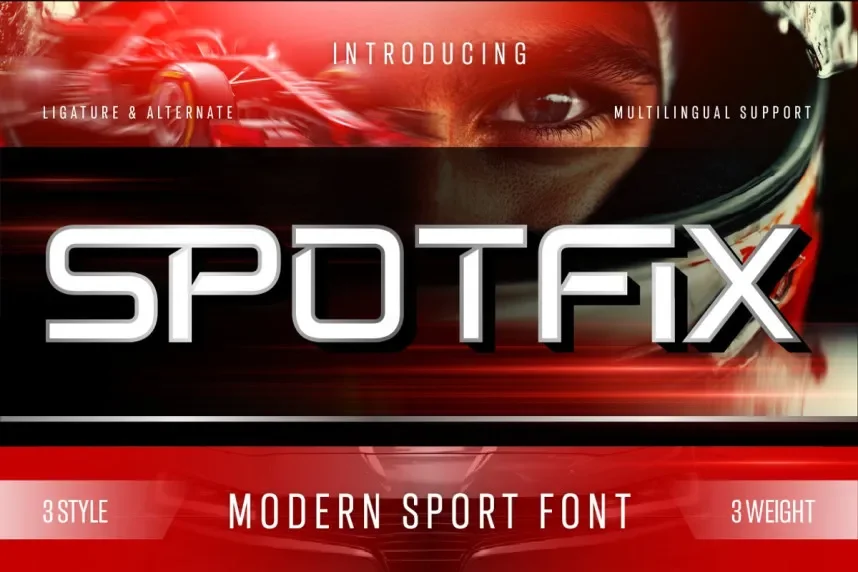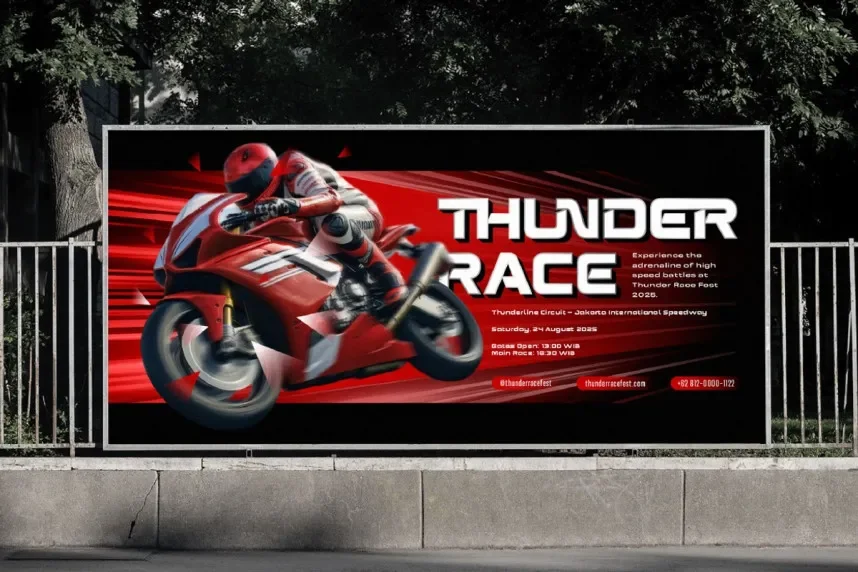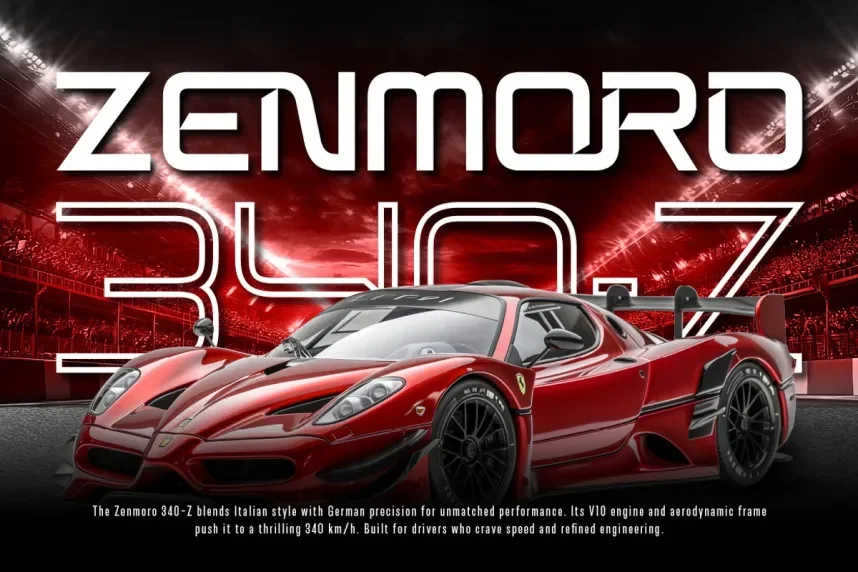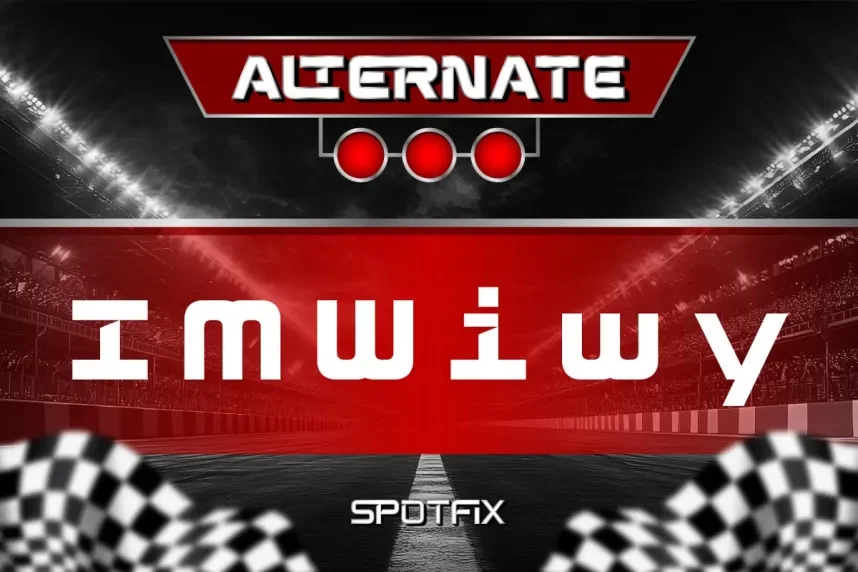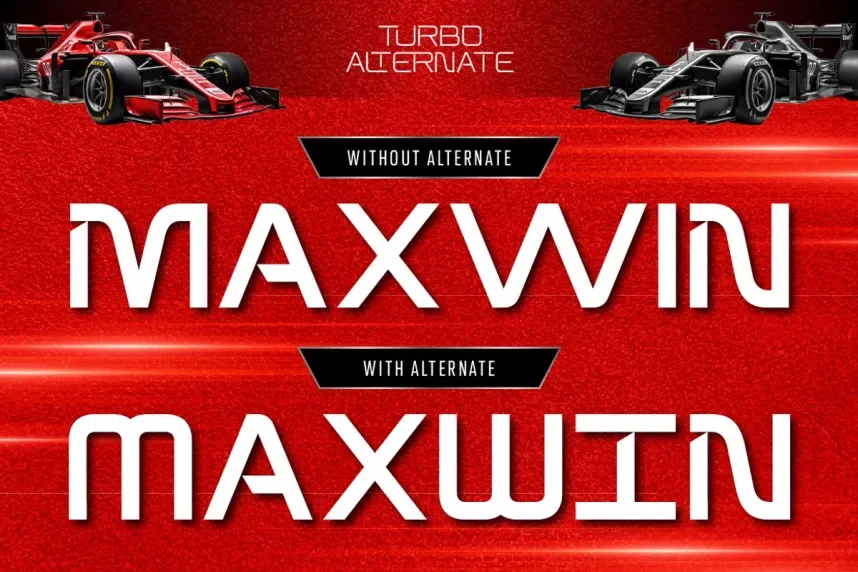
Spotfix Font is a contemporary sans-serif typeface designed for clean, readable designs. Its simple, straightforward letterforms make it perfect for UI design, website headings, and professional branding, ensuring clarity without sacrificing style.